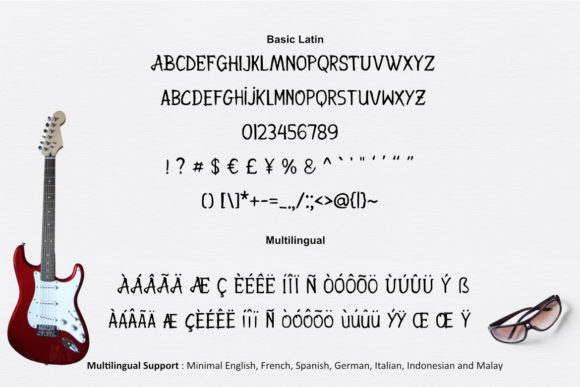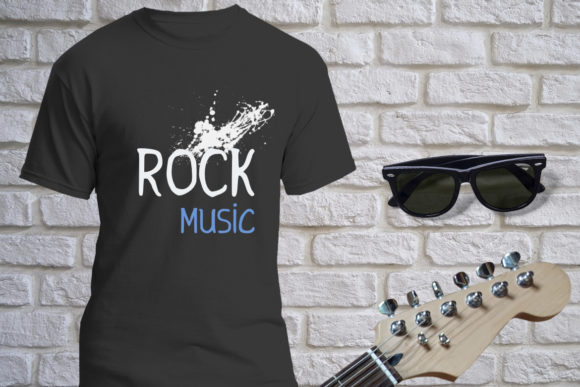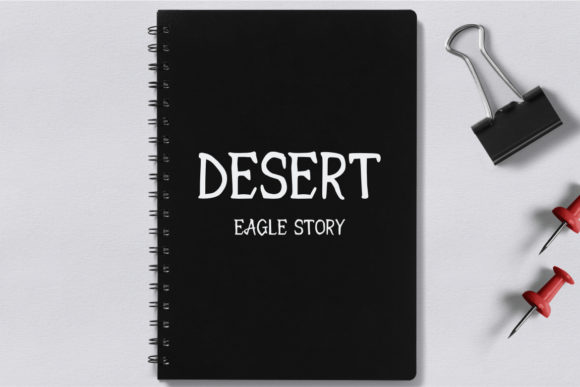
Introducing Allister Font: The Cute and Casual Serif Font for Creative Projects
Are you a designer, crafter, or DIY enthusiast looking for a font that can add a touch of friendliness and approachability to your creative projects? Look no further than Allister Font, a cute and casual serif font that is sure to turn your ideas into true works of art. In this article, we’ll take a closer look at the Allister Font, its features, and how it can be used to elevate your designs, from Instagram posts to calligraphy scripts and beyond.
The Allister Font: A Friendly and Approachable Serif Font
Allister Font is a unique and charming serif font that exudes warmth and friendliness. Its casual and relaxed vibe makes it perfect for designers and crafters who want to add a personal touch to their work. Whether you’re creating social media graphics, crafting DIY projects, or designing calligraphy scripts, Allister Font is the perfect choice. Its incredibly friendly feel makes it easy to connect with your audience and convey your message in a way that’s both approachable and engaging.
Key Features of Allister Font
So, what makes Allister Font so special? Here are some of its key features:
- Cute and Casual Design: Allister Font has a playful and relaxed design that’s perfect for creative projects that require a friendly and approachable tone.
- Serif Font: As a serif font, Allister Font has a classic and timeless feel that’s perfect for designs that require a touch of sophistication.
- Highly Versatile: Allister Font can be used for a wide range of creative projects, from social media graphics to calligraphy scripts and DIY projects.
- Easily Readable: Allister Font is designed to be highly readable, making it perfect for designs that require clear and concise communication.
Using Allister Font for Instagram and Social Media Graphics
In today’s digital age, social media is an essential platform for designers, crafters, and DIY enthusiasts to showcase their work. Allister Font is the perfect choice for creating engaging and eye-catching social media graphics, including Instagram posts, Facebook graphics, and more. Its friendly and approachable design makes it easy to connect with your audience and convey your message in a way that’s both authentic and engaging.
Here are some tips for using Allister Font for social media graphics:
- Keep it Simple: Use Allister Font to create simple and easy-to-read graphics that convey your message clearly.
- Add a Personal Touch: Use Allister Font to add a personal touch to your graphics, making them more relatable and engaging.
- Experiment with Colors: Allister Font looks great in a variety of colors, so don’t be afraid to experiment and find the perfect color scheme for your design.
Using Allister Font for Calligraphy Scripts and DIY Projects
Allister Font is also perfect for calligraphy scripts and DIY projects. Its classic and timeless design makes it a great choice for creating beautiful and elegant calligraphy scripts, while its friendly and approachable feel makes it perfect for DIY projects that require a personal touch.
Here are some tips for using Allister Font for calligraphy scripts and DIY projects:
- Practice Makes Perfect: Take the time to practice using Allister Font for calligraphy scripts and DIY projects, and don’t be afraid to experiment and try new things.
- Add a Personal Touch: Use Allister Font to add a personal touch to your calligraphy scripts and DIY projects, making them more unique and special.
- Get Creative: Don’t be afraid to get creative and try new things with Allister Font. Its versatility makes it perfect for a wide range of DIY projects and calligraphy scripts.
| Font Name | Allister Font |
| Author | ArdiDesigns |
In conclusion, Allister Font is a cute and casual serif font that’s perfect for designers, crafters, and DIY enthusiasts who want to add a touch of friendliness and approachability to their creative projects. Its incredibly friendly feel, highly versatile design, and easily readable font make it perfect for a wide range of creative projects, from social media graphics to calligraphy scripts and DIY projects. So why not give Allister Font a try and see how it can elevate your designs and turn your creative ideas into true works of art?